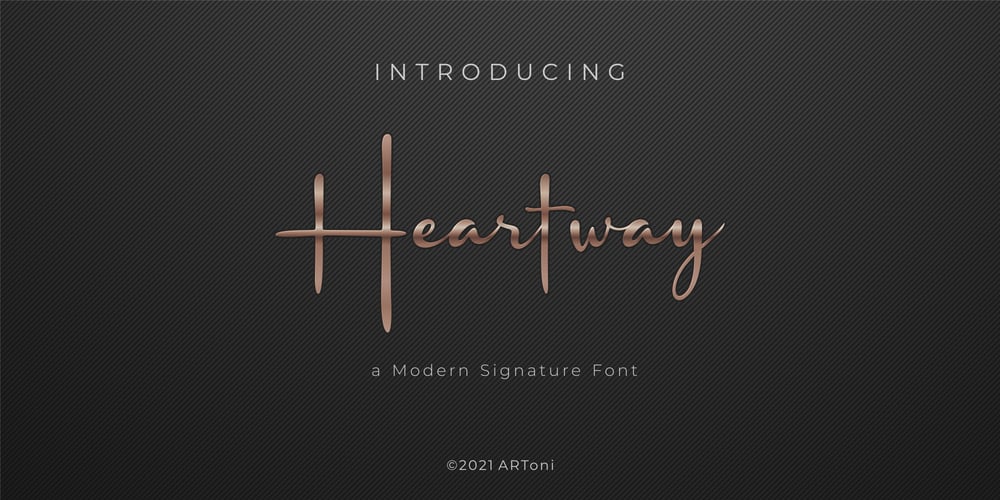
Heartway
Heartway font
Heartway Font Family was designed by Anthonie Van Hayu and published by ARToni. Heartway contains 1 styles and family package options. Heartway is a lovely and timeless handwritten font. It is the best choice for creating eye catching logos, branding and quotes. Every letter has a unique and beautiful touch, which will make your design come alive!